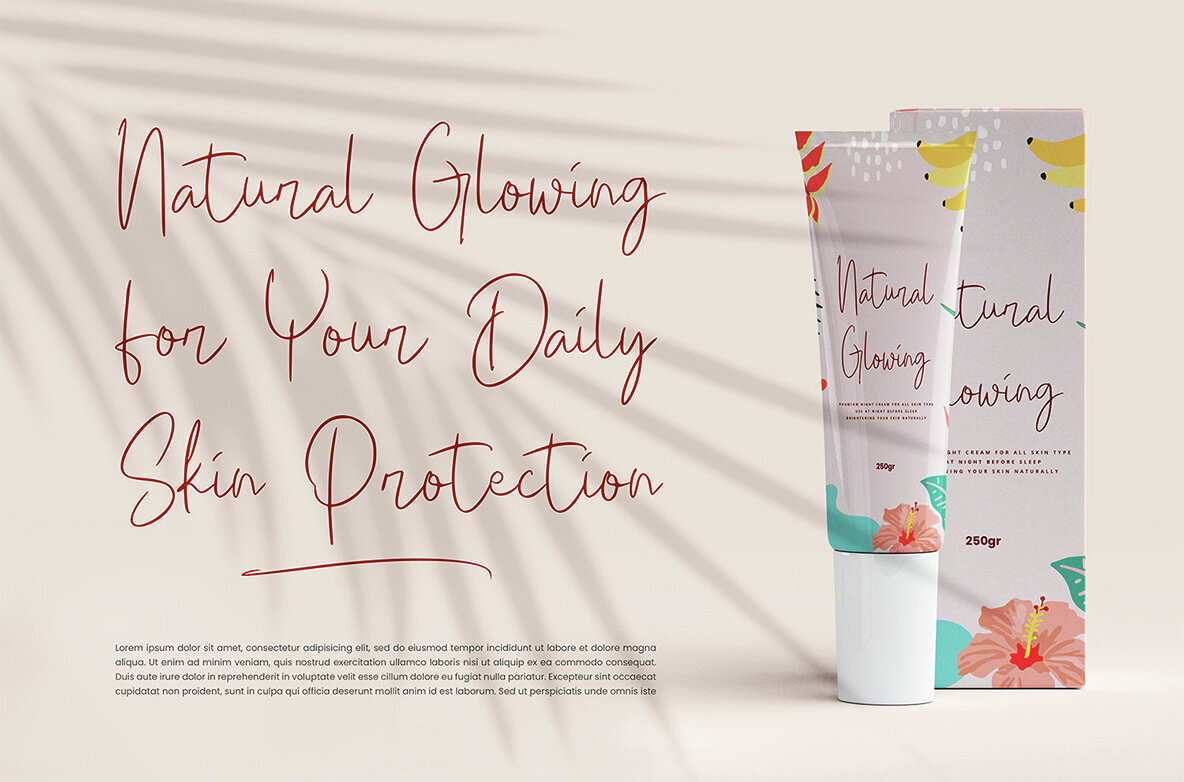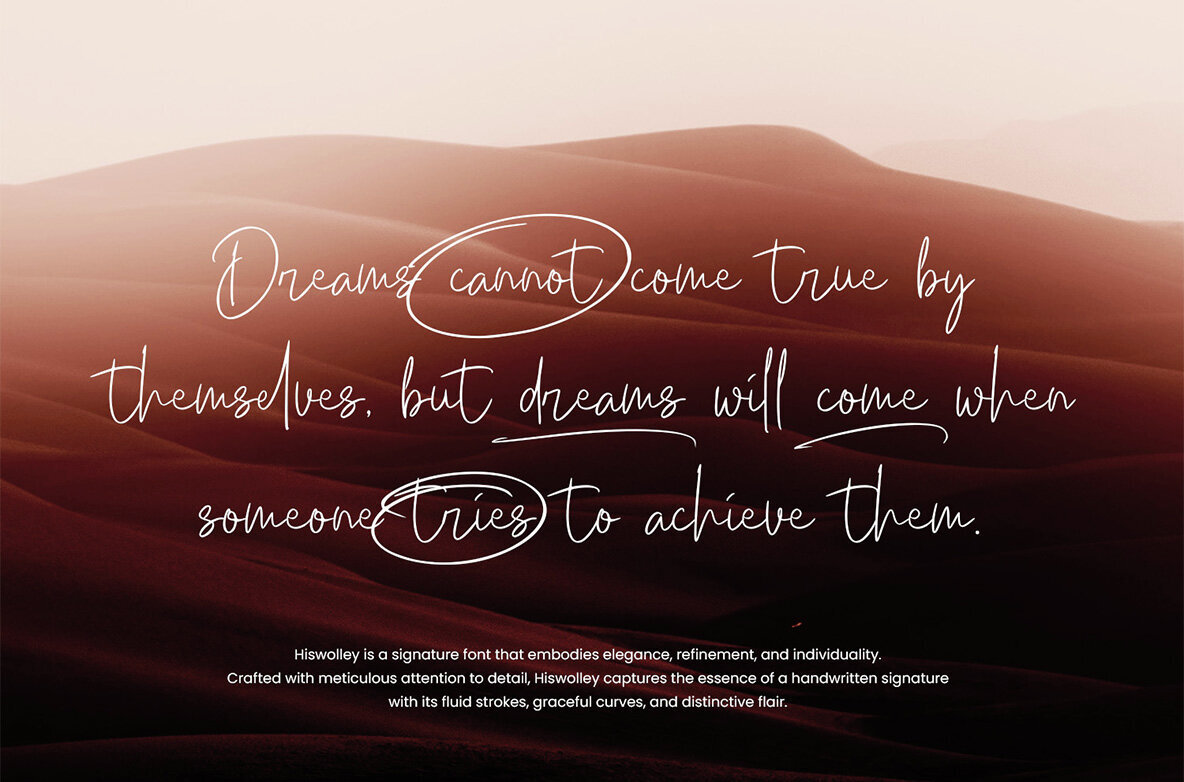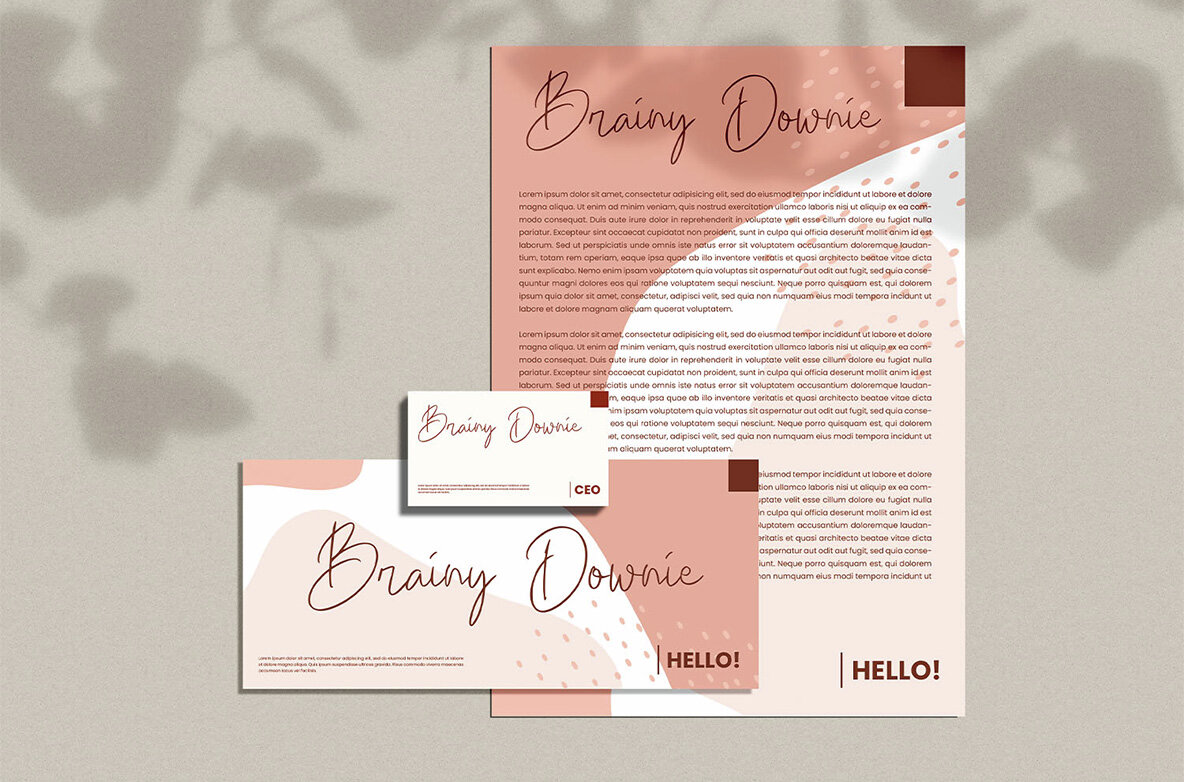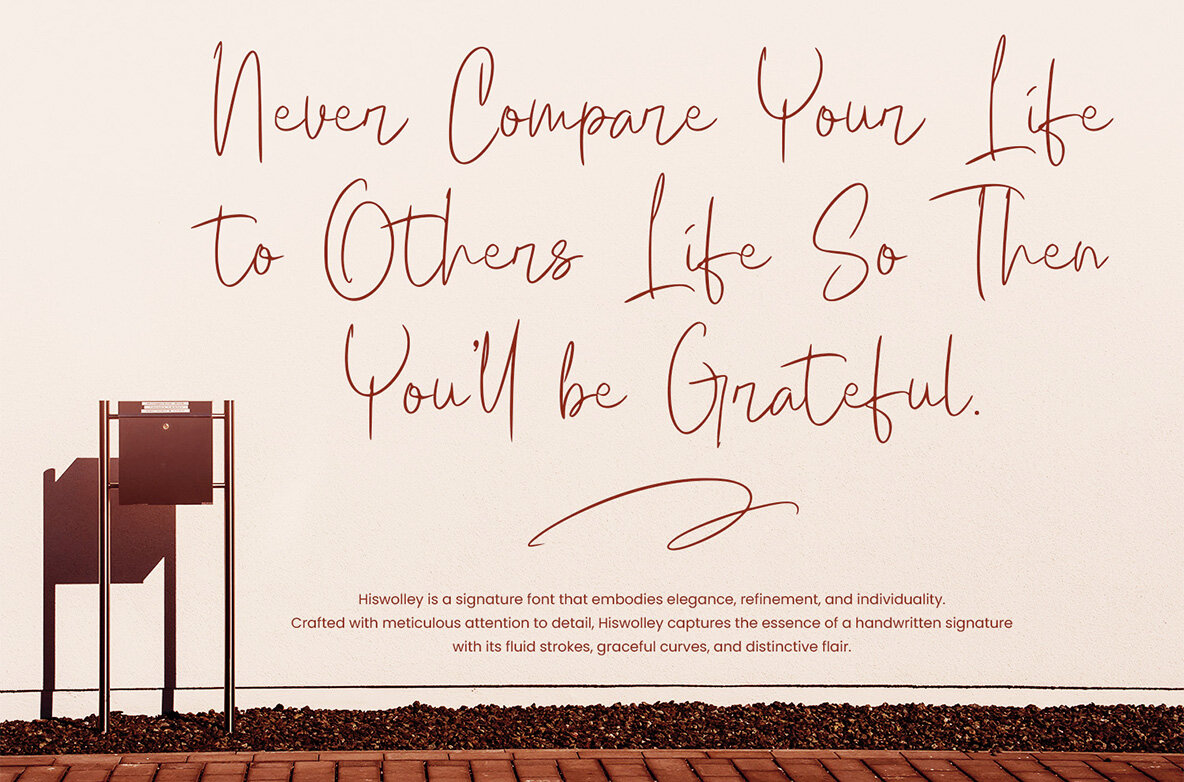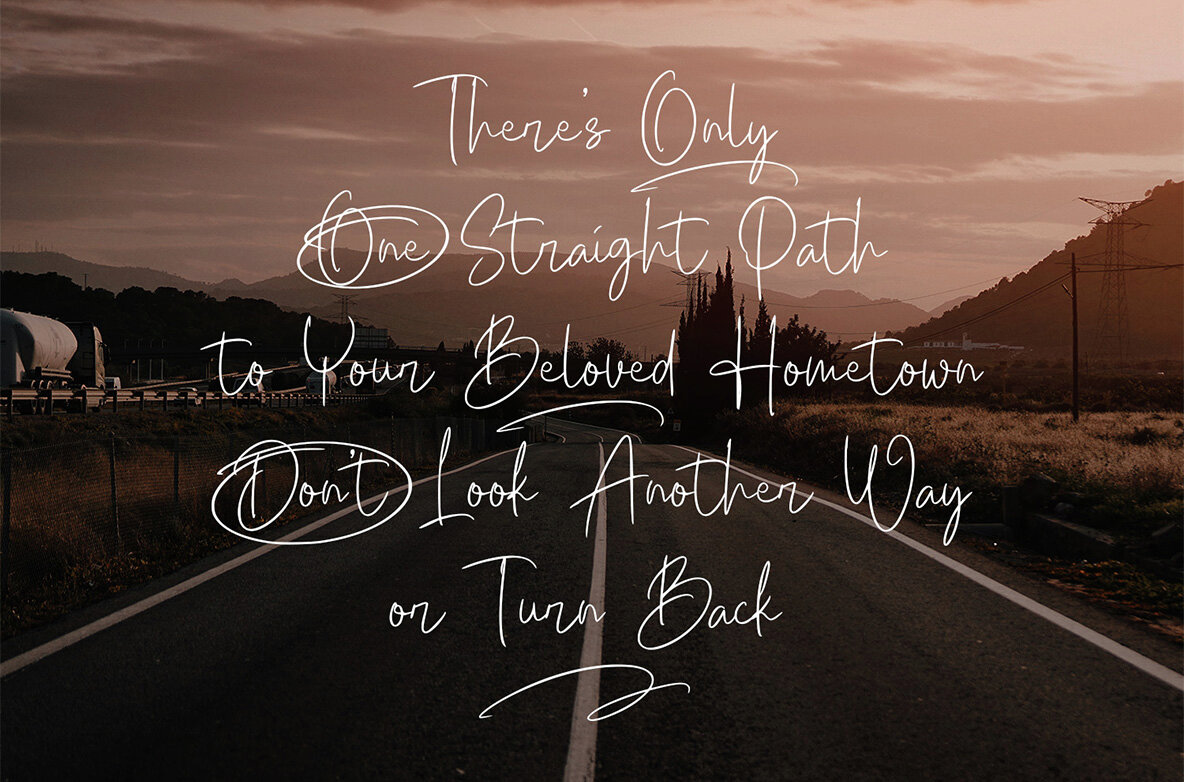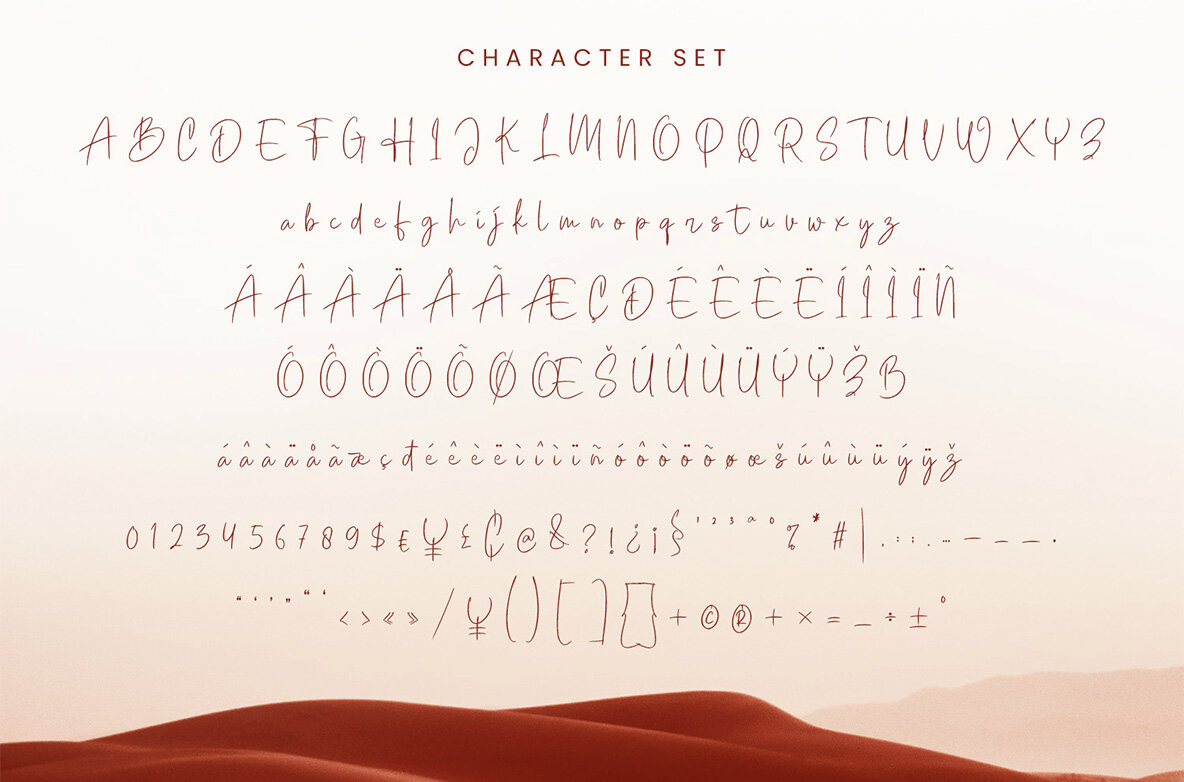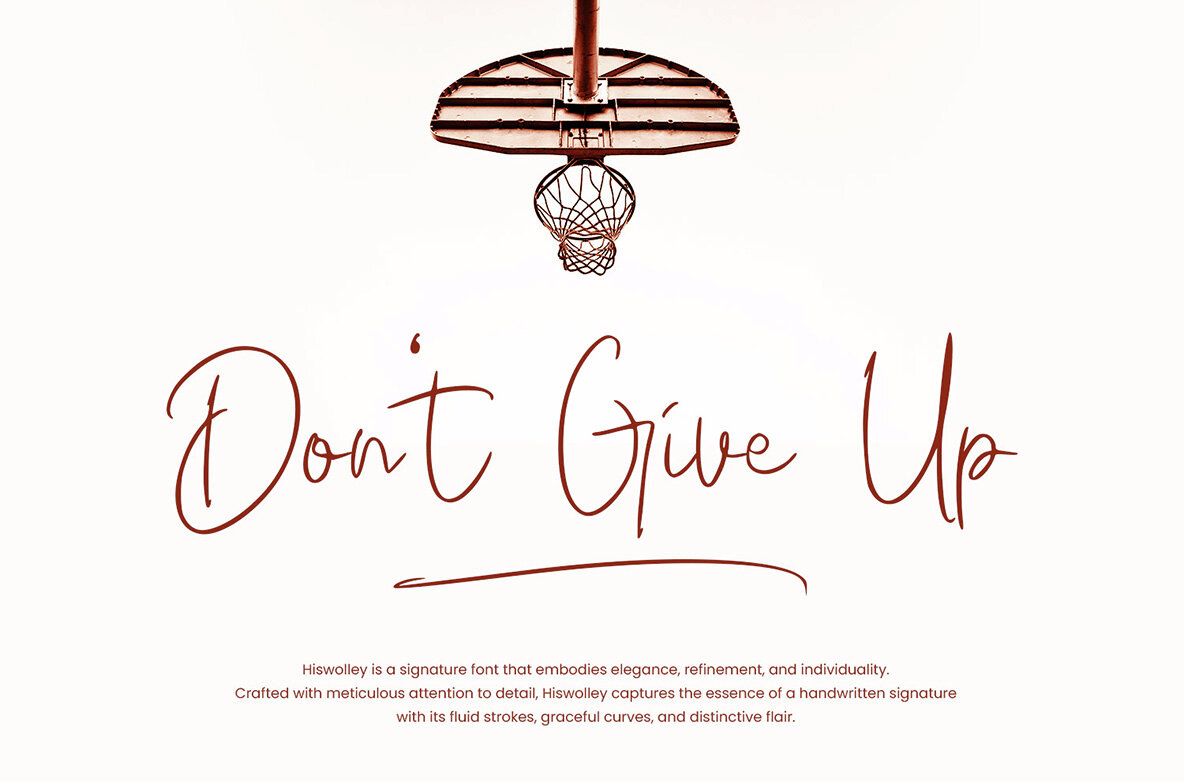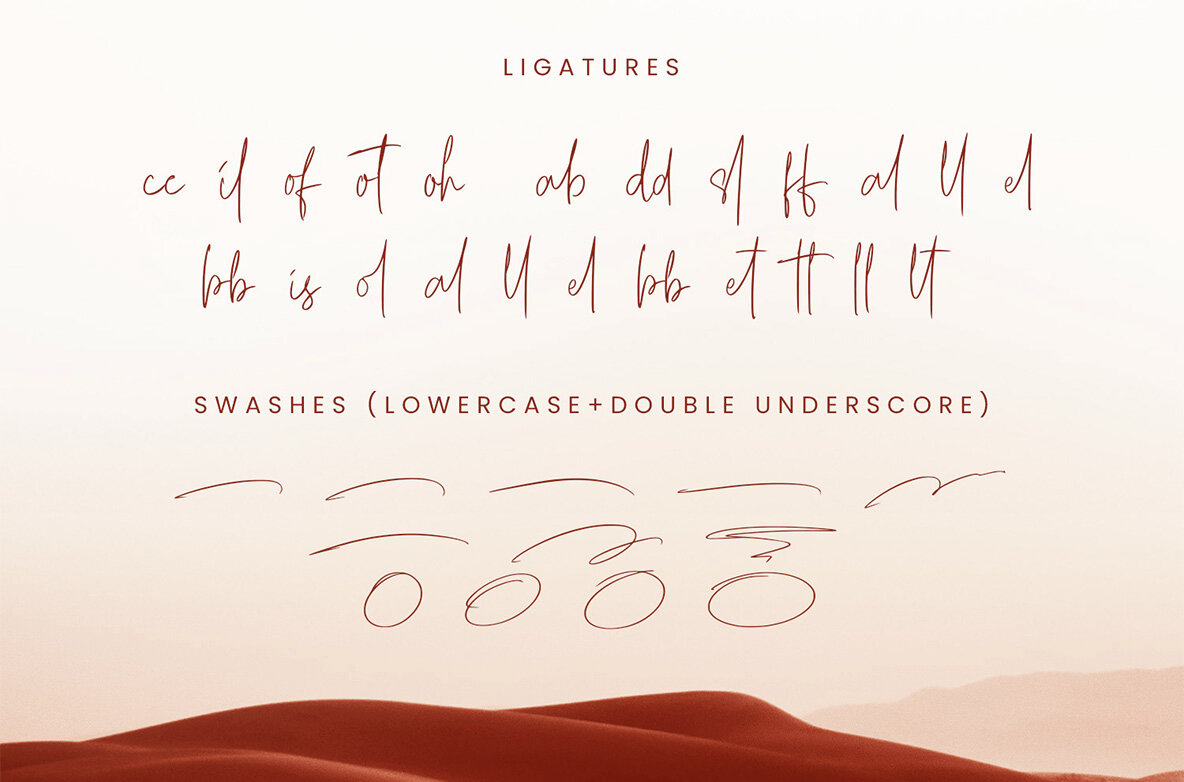
Hiswolley Font
Hiswolley Regular
Introducing Hiswolley, a signature font that embodies elegance, refinement, and individuality. Crafted with meticulous attention to detail, Hiswolley captures the essence of a handwritten signature with its fluid strokes, graceful curves, and distinctive flair. Each letter in Hiswolley is meticulously designed to emulate the natural flow of penmanship, creating a seamless and organic feel. The strokes possess a rhythmic balance between sophistication and spontaneity, reflecting the unique personality and style of its creator. With its versatile use of ligatures, Hiswolley offers endless possibilities for customization, allowing you to tailor your signature to suit any project or branding endeavor. Whether used for personal branding, luxury packaging, wedding invitations, or business correspondence, Hiswolley adds a touch of class and exclusivity to any design. The elegance of Hiswolley transcends trends, making it an addition to any designer’s toolkit. Elevate your projects with the elegance and refinement of Hiswolley, and leave a lasting impression with every stroke of your virtual pen. Experience the artistry of handwritten sophistication with Hiswolley – where every signature tells a story of style, grace, and individuality. FONT FEATURES SOFTWARE RECOMMENDATION